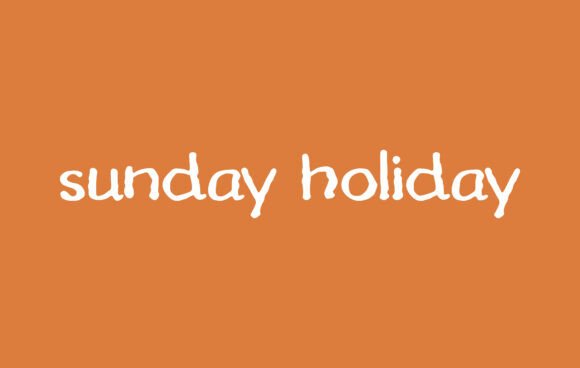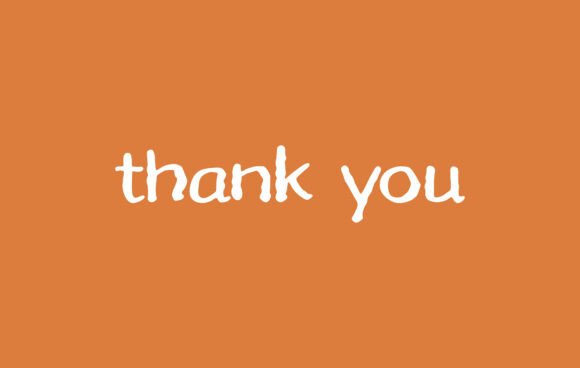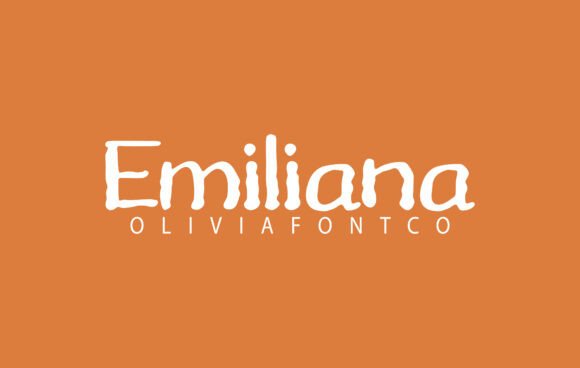
Discover the Charm of Emiliana Font: Elevate Your Designs with a Romantic Touch
In the world of typography, fonts play a crucial role in conveying the tone and personality of a design. For creatives looking to add a touch of romance and elegance to their projects, Emiliana font is an excellent choice. This authentic handwritten font is expertly designed to capture the hearts of designers and crafters alike, making it a true favorite among typography enthusiasts.
The Unique Characteristics of Emiliana Font
Emiliana font boasts a distinctive romantic touch that sets it apart from other fonts. Its authentic handwritten style gives it a personal and intimate feel, making it perfect for designs that require a human touch. The font’s legibility is another one of its standout features, ensuring that it looks great as both title and body text. This versatility makes Emiliana font an excellent addition to any designer’s toolkit.
Endless Design Possibilities with Emiliana Font
One of the most significant advantages of Emiliana font is its incredible flexibility. Its elegant and romantic style makes it suitable for a wide range of design applications, including:
• Magazine Headlines: Add a touch of sophistication to your magazine covers with Emiliana font’s beautiful and eye-catching lettering.
• Social Media: Elevate your social media posts with Emiliana font’s elegant and modern style, perfect for grabbing the attention of your audience.
• Branding: Create a lasting impression with Emiliana font’s unique and memorable lettering, ideal for logos, business cards, and more.
• Wedding Invitations: Make your wedding invitations truly special with Emiliana font’s romantic and whimsical style.
• Cards: Add a personal touch to your greeting cards, invitations, and other paper crafts with Emiliana font’s beautiful handwritten lettering.
Why Designers and Crafters Love Emiliana Font
Emiliana font has quickly become a favorite among designers and crafters due to its exceptional quality and versatility. Here are just a few reasons why:
• Unique Style: Emiliana font’s authentic handwritten style gives it a distinctive and recognizable personality that sets it apart from other fonts.
• Legibility: The font’s excellent legibility ensures that it remains clear and easy to read, even at smaller sizes.
• Ease of Use: Emiliana font is incredibly easy to use, making it perfect for designers and crafters of all skill levels.
• High-Quality Design: Emiliana font is expertly designed to provide a premium look and feel, making it ideal for professional designs.
Tips for Getting the Most Out of Emiliana Font
To truly make the most of Emiliana font, here are a few tips to keep in mind:
• Experiment with Sizes: Emiliana font looks great at a variety of sizes, so don’t be afraid to experiment to find the perfect fit for your design.
• Play with Colors: The font’s elegant style pairs well with a range of colors, so try out different combinations to find the one that works best for your project.
• Mix and Match: Combine Emiliana font with other fonts to create a unique and eye-catching design.
Emiliana font is a true gem in the world of typography, offering a unique blend of romance, elegance, and versatility. Whether you’re a designer, crafter, or simply someone who appreciates beautiful typography, Emiliana font is an excellent choice for any project. With its exceptional quality, ease of use, and endless design possibilities, it’s no wonder that Emiliana font has quickly become a favorite among creatives. So why wait? Discover the charm of Emiliana font today and elevate your designs to new heights!